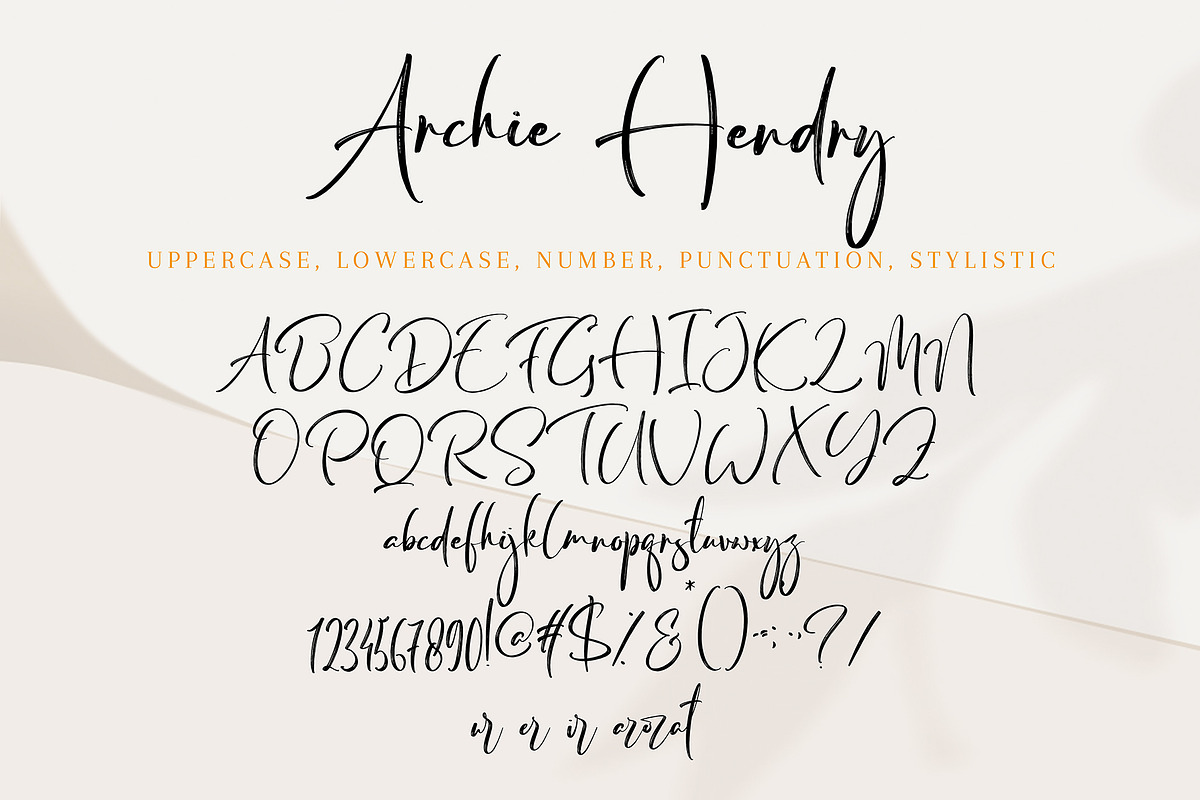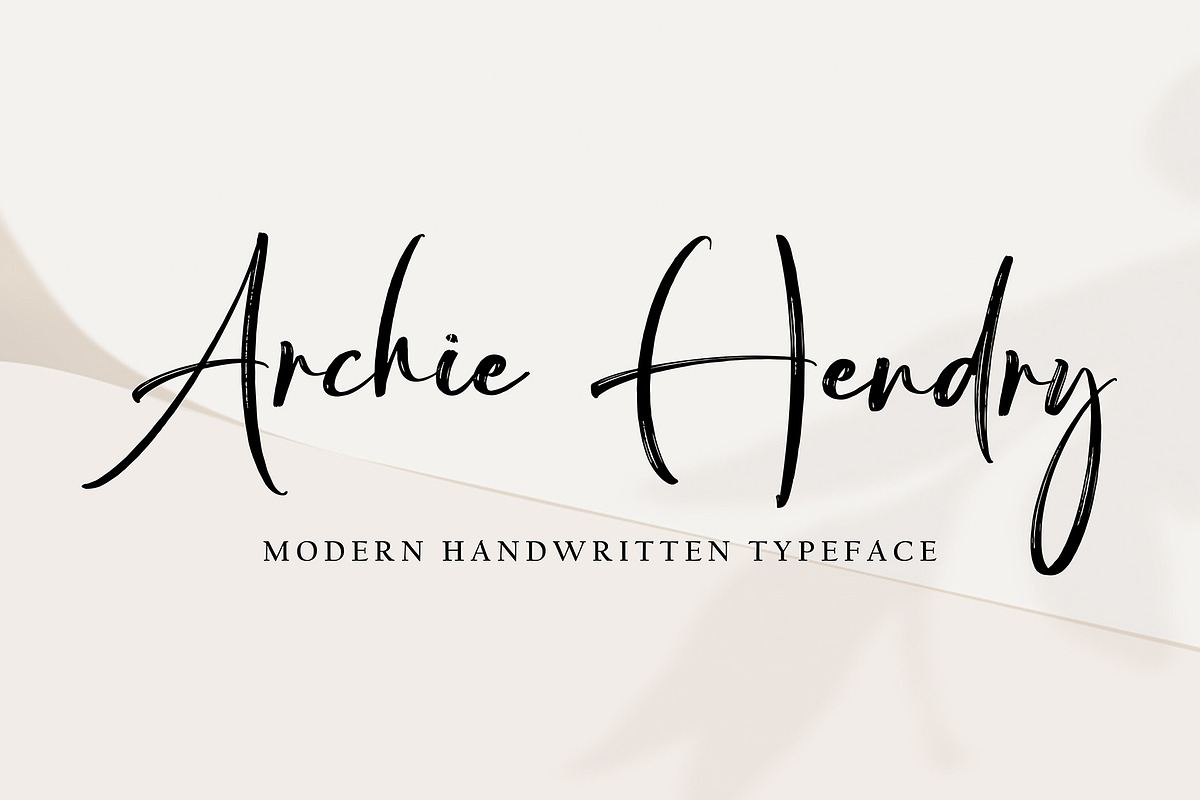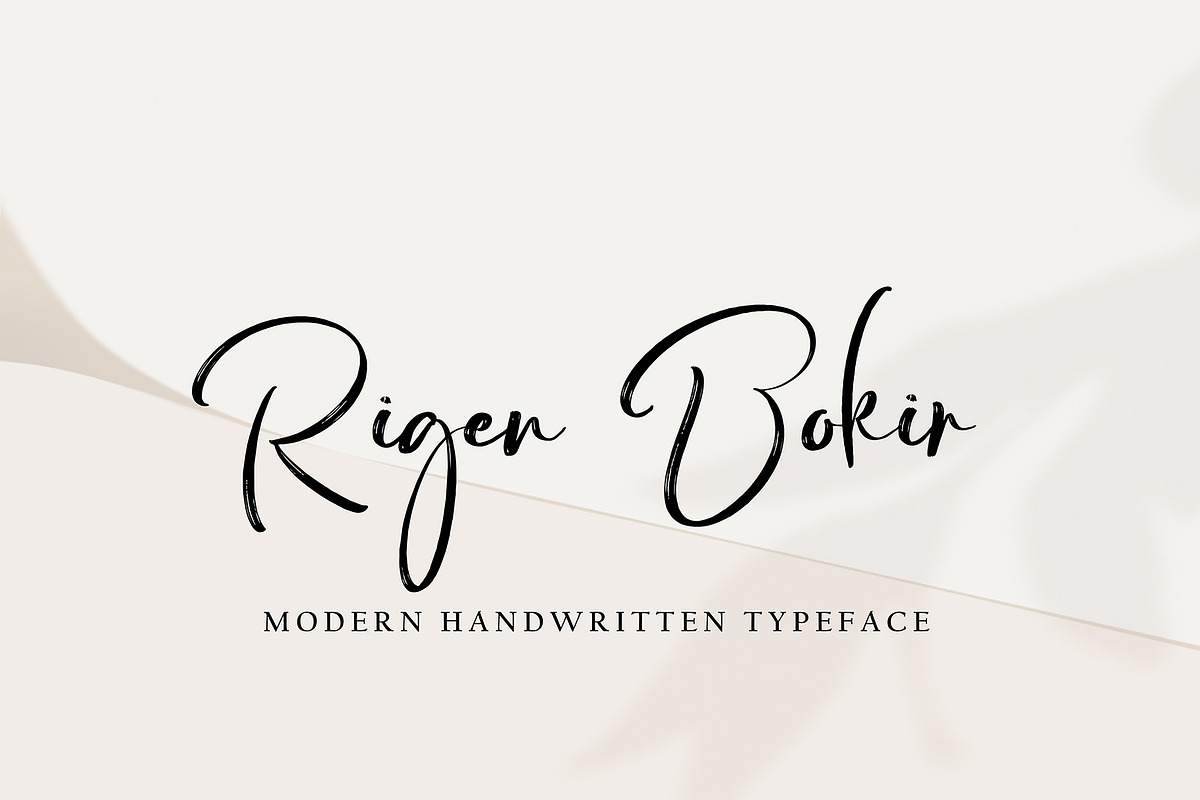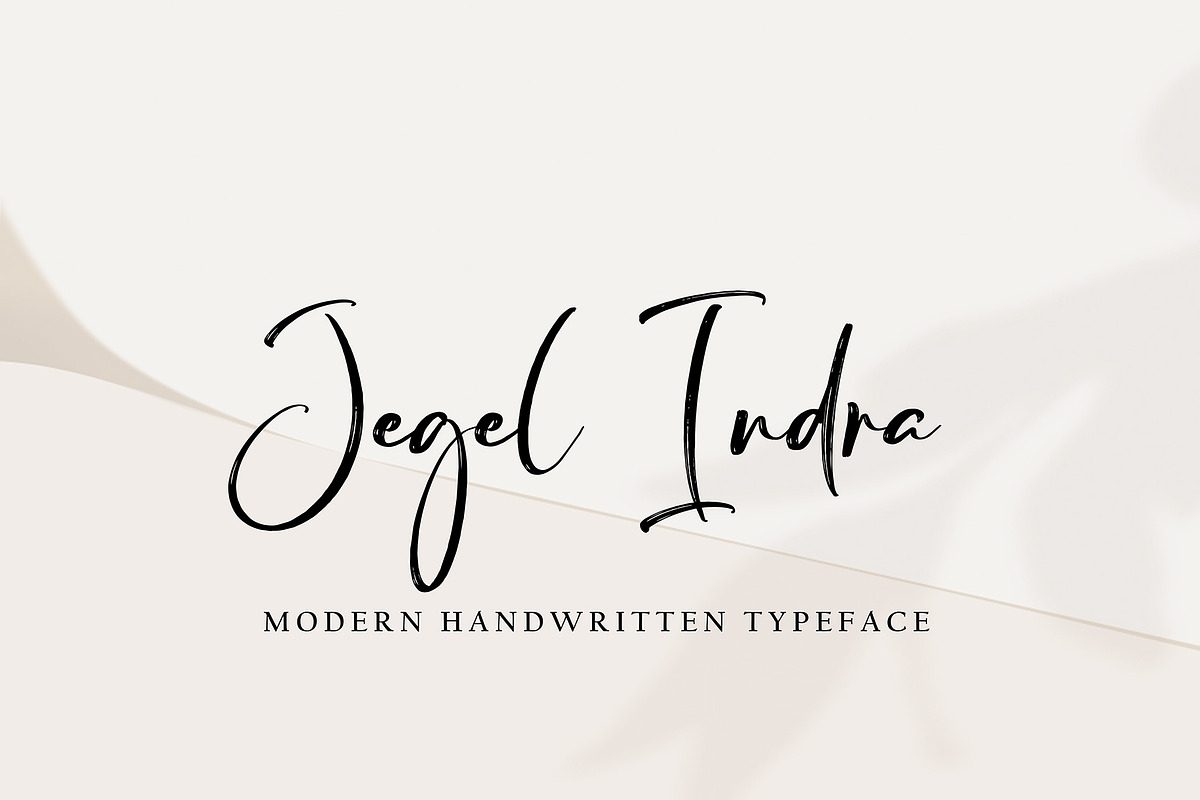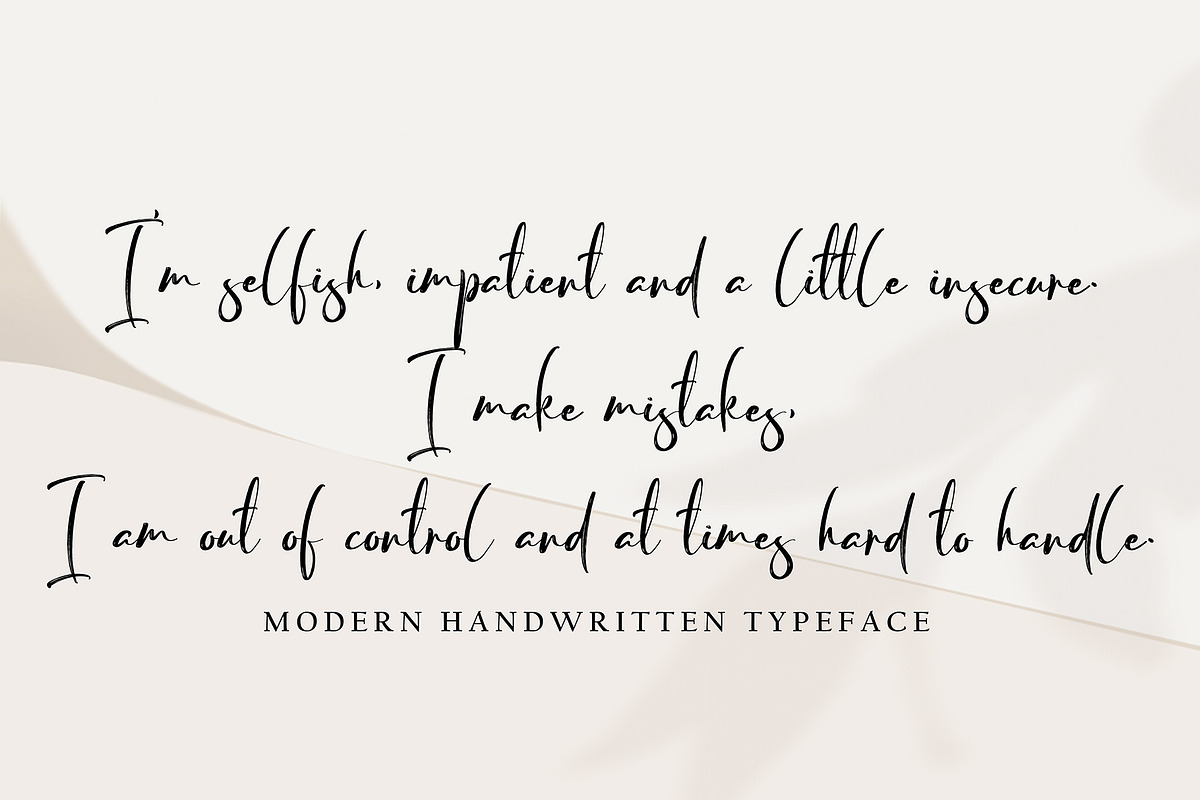
Archie Hendry
Archie Hnedry with new style, this font will perfect for many different project ex: quotes, logo, blog header, poster, banding, letter, invitation, stationery, etc...